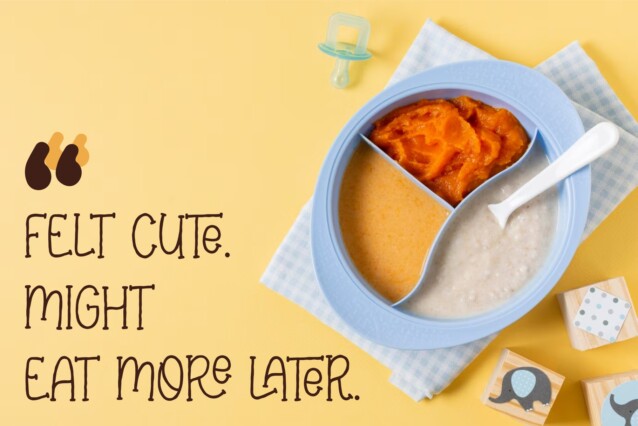
Elabora Font
Elabora Font is inspired by chalk strokes so it has a rough and textured look. This font is cute and informal or can be serious and academic. This font can be used for classroom materials, children’s books and products, invitations and announcements, website designs, product packaging, and other needs that are suitable for this font.